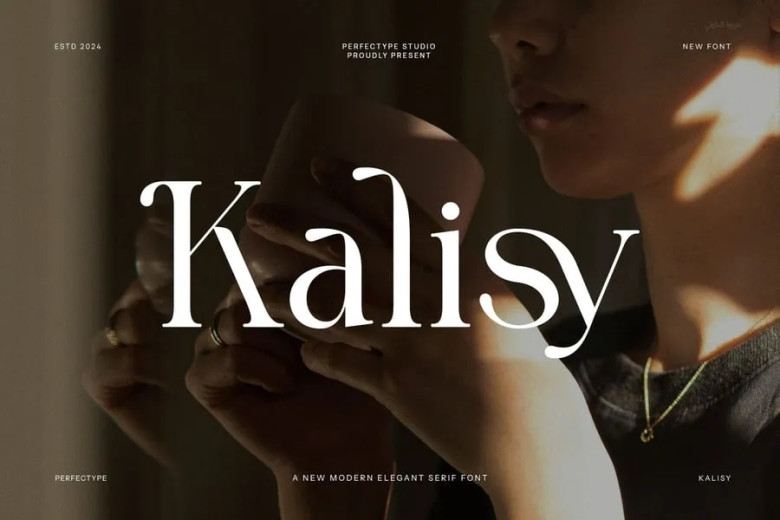
Kalisy Font
Kalisy is a versatile and sober font suitable for all branding and logo designs. This kind of Serif font is crafted with style and sophistication, thus it can be utilized in all your design needs. It is useful in many ways, most importantly in the branding activities, logo designs, social media posting, advertisements, labels and product packaging, photography, wedding design, watermark and invitation product design, stationaries and any project that is being done professionally.
Kalisy Serif Font